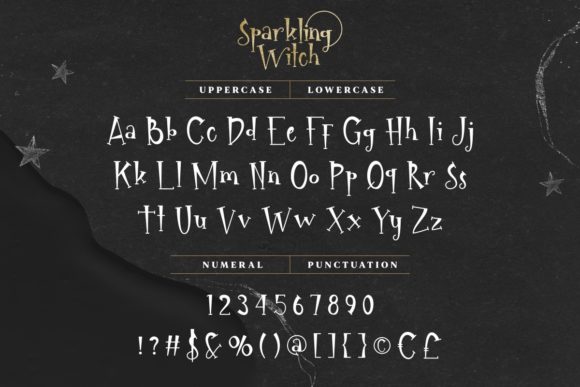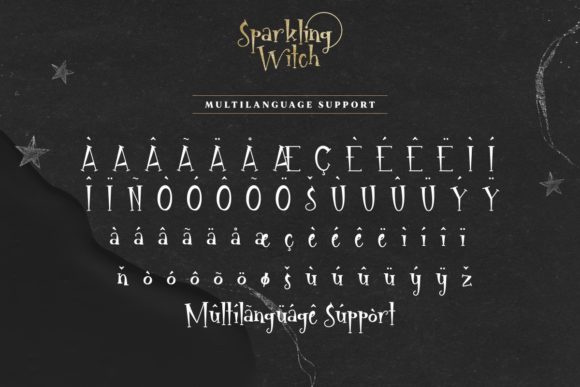
Sparkling Witch is a unique serif font inspired by witch world fonts from a fairy tale book.
Sparkling Witch is perfect for various creative projects, including book covers, branding, invitations, lettering, product packaging, signage, titles, or any project that needs a unique and magical touch. The theme/industries of this font are fashion, games, kids, Movies, etc.